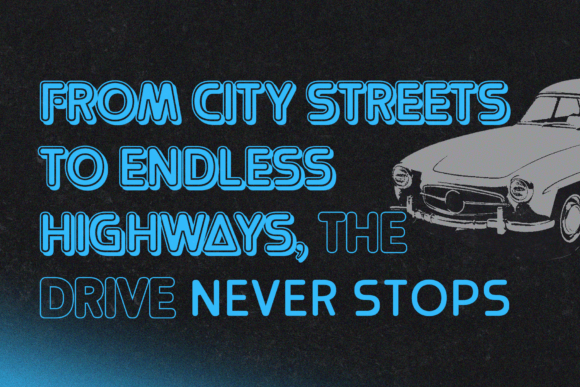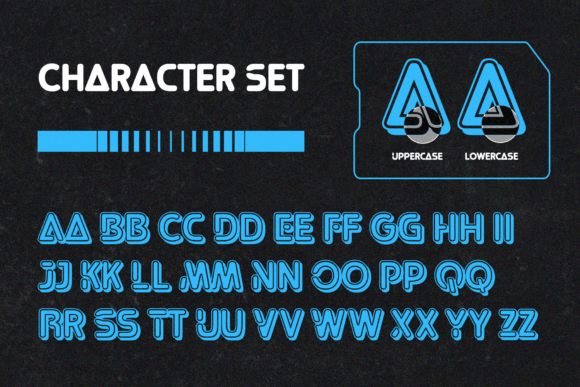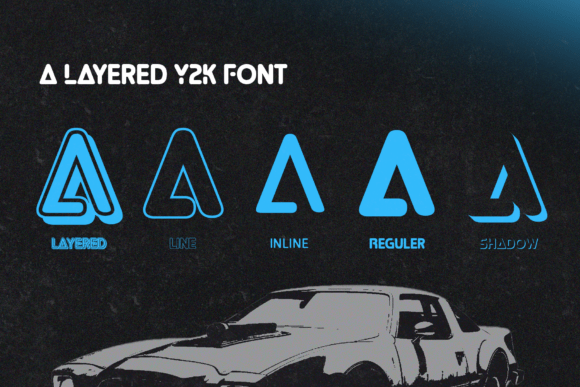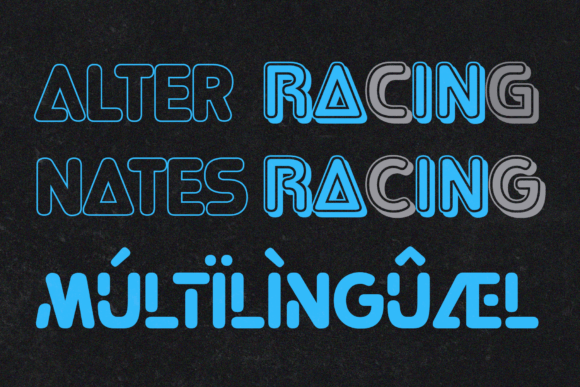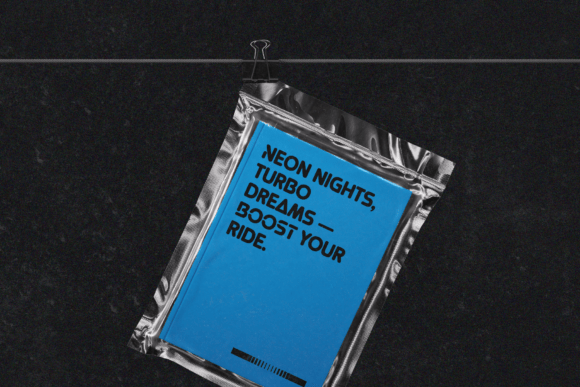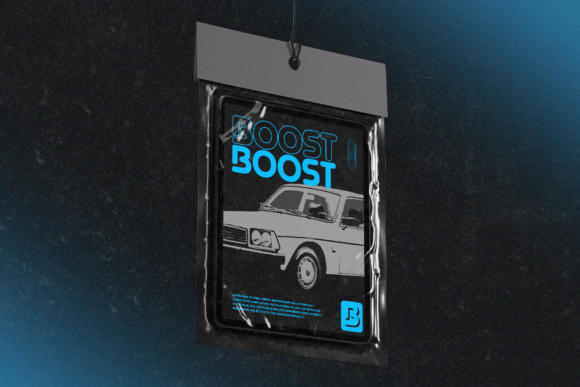
Aqeon Font: A Bold Layered Typeface Inspired by Y2K Aesthetics
Step into the futuristic vibes of the early 2000s with Aqeon, a bold layered typeface that embodies the spirit of Y2K aesthetics and digital nostalgia. This sleek and modern font is perfect for designers and crafters looking to add a touch of retro tech charm to their projects. In this article, we’ll dive into the world of Aqeon and explore its features, uses, and benefits.
The Inspiration Behind Aqeon
Aqeon is inspired by the iconic designs of the early 2000s, a time when technology was rapidly evolving and digital culture was on the rise. The font’s creator aimed to capture the essence of this era, characterized by metallic gradients, glossy magazine energy, and a sense of futuristic optimism. The result is a font that exudes a nostalgic yet modern edge, perfect for designs that require a bold and eye-catching approach.
Key Features of Aqeon
Aqeon boasts several key features that make it a standout font:
- Layered Design: Aqeon’s layered typeface allows for endless creative possibilities. Users can experiment with different layer combinations to achieve a unique look that suits their design needs.
- Geometric Forms: The font’s sleek geometric forms provide a futuristic and modern feel, making it perfect for designs that require a cutting-edge approach.
- Playful Options: Aqeon’s playful layering options enable users to add a touch of whimsy and personality to their designs.
Uses for Aqeon
Aqeon’s versatility makes it suitable for a wide range of design applications:
- Logos: Create eye-catching logos that make a statement with Aqeon’s bold and futuristic design.
- Posters: Add a touch of retro tech charm to your posters with Aqeon’s sleek and modern typeface.
- Apparel: Design trendy apparel that stands out from the crowd with Aqeon’s playful and layered approach.
- Album Covers: Give your music projects a nostalgic yet modern edge with Aqeon’s bold and futuristic font.
Benefits of Using Aqeon
By incorporating Aqeon into your design workflow, you’ll enjoy several benefits:
- Unique Designs: Aqeon’s layered typeface and geometric forms enable you to create unique and eye-catching designs that stand out from the crowd.
- Time-Saving: With Aqeon’s versatility and flexibility, you can experiment with different design options quickly and efficiently.
- Nostalgic Charm: Add a touch of retro tech charm to your designs and evoke a sense of nostalgia in your audience.
Tips for Using Aqeon Effectively
To get the most out of Aqeon, follow these tips:
- Experiment with Layering: Don’t be afraid to experiment with different layer combinations to achieve a unique look.
- Play with Colors: Aqeon’s metallic gradients and glossy energy are perfect for adding a pop of color to your designs.
- Mix and Match: Combine Aqeon with other fonts and design elements to create a truly unique and eye-catching design.
Aqeon is a bold and futuristic font that embodies the spirit of Y2K aesthetics and digital nostalgia. With its sleek geometric forms, playful layering options, and metallic gradients, Aqeon is perfect for designers and crafters looking to add a touch of retro tech charm to their projects. Whether you’re designing logos, posters, apparel, or album covers, Aqeon is sure to give your designs a nostalgic yet modern edge.